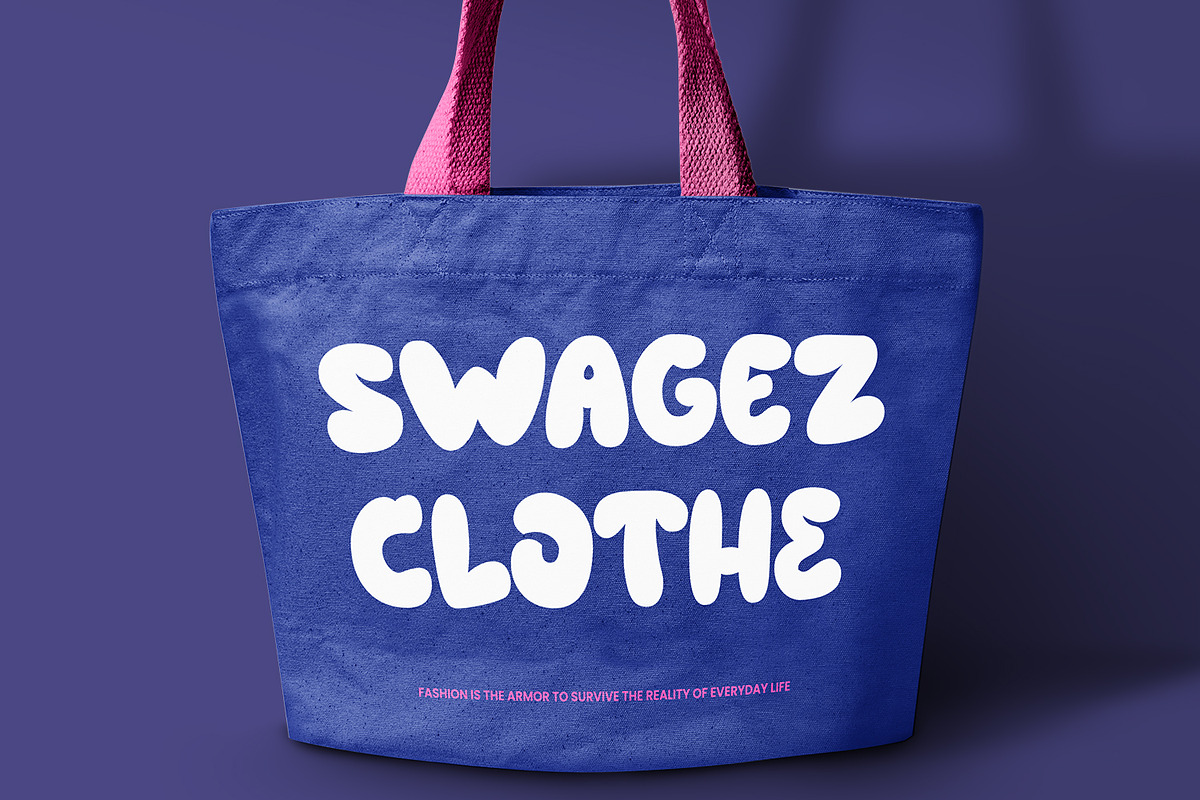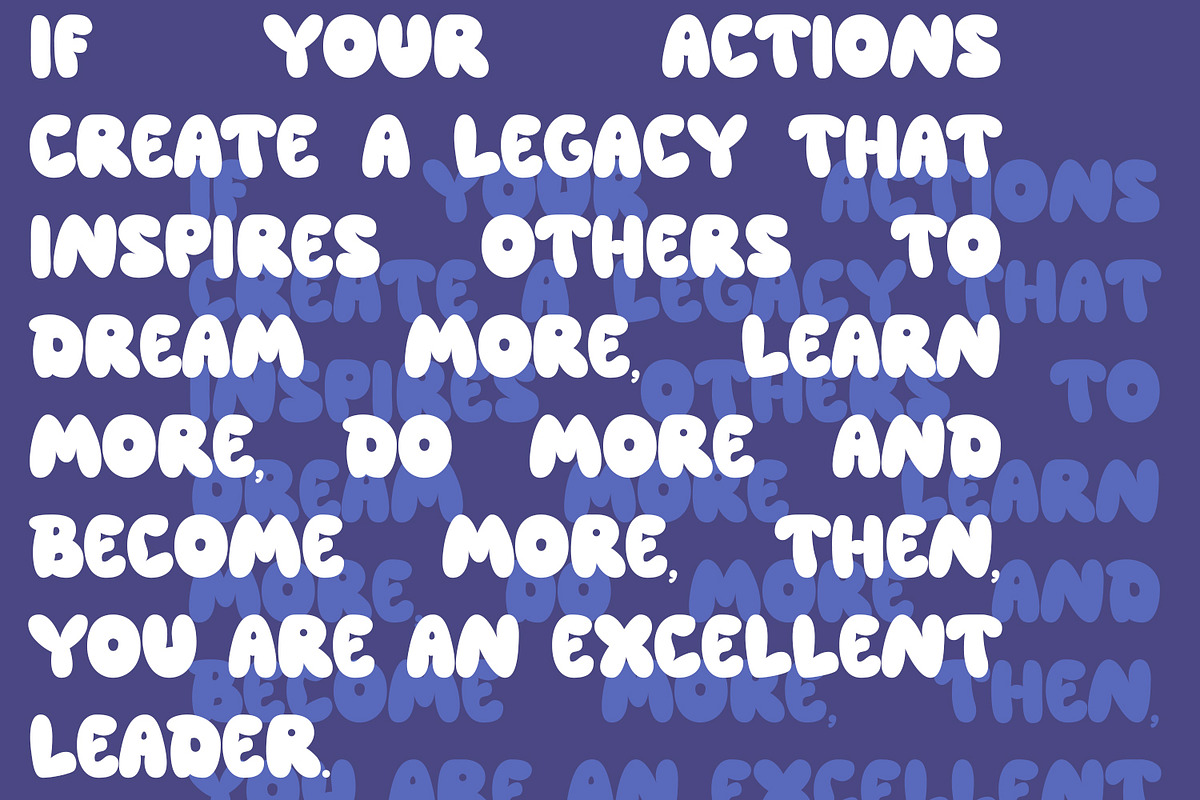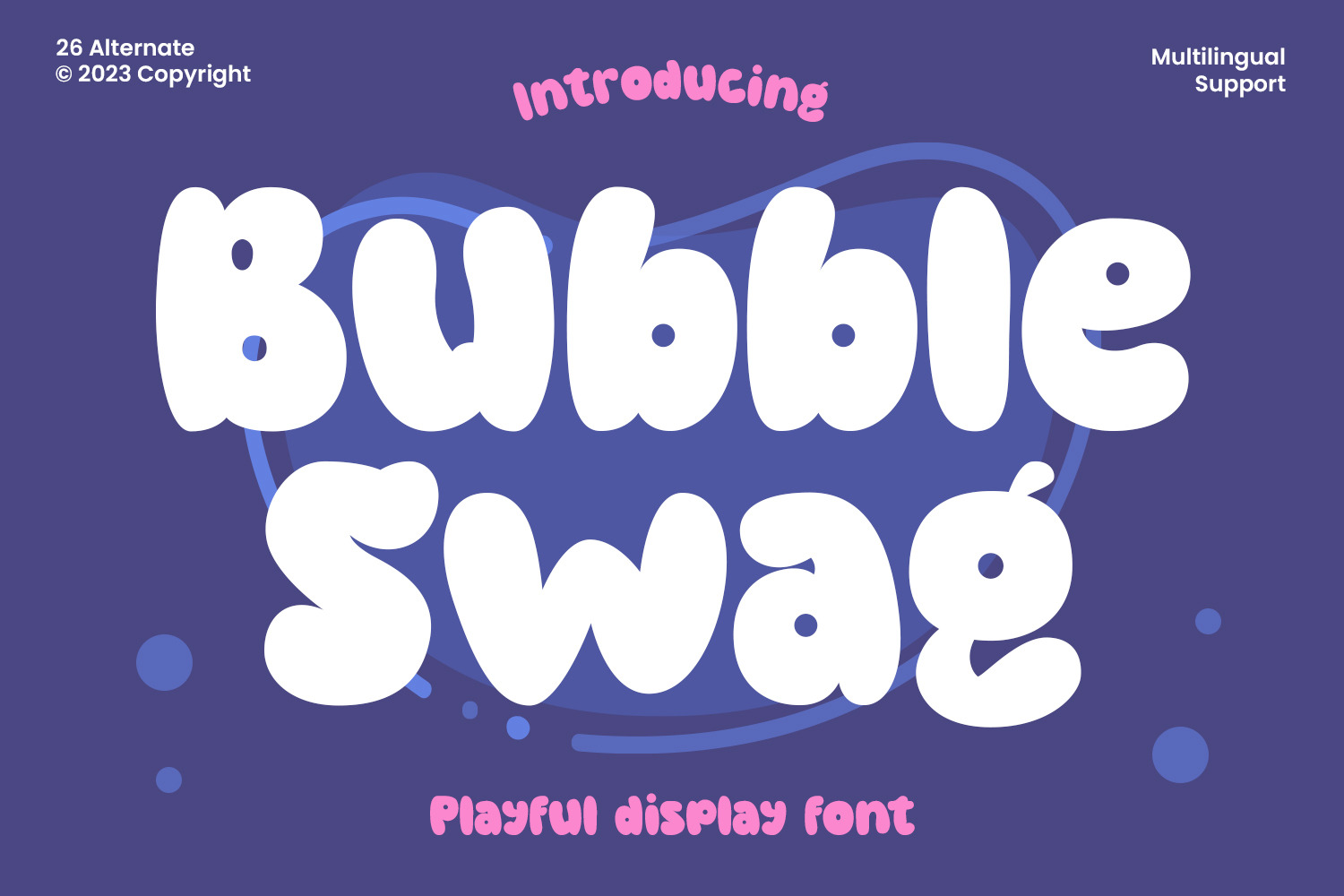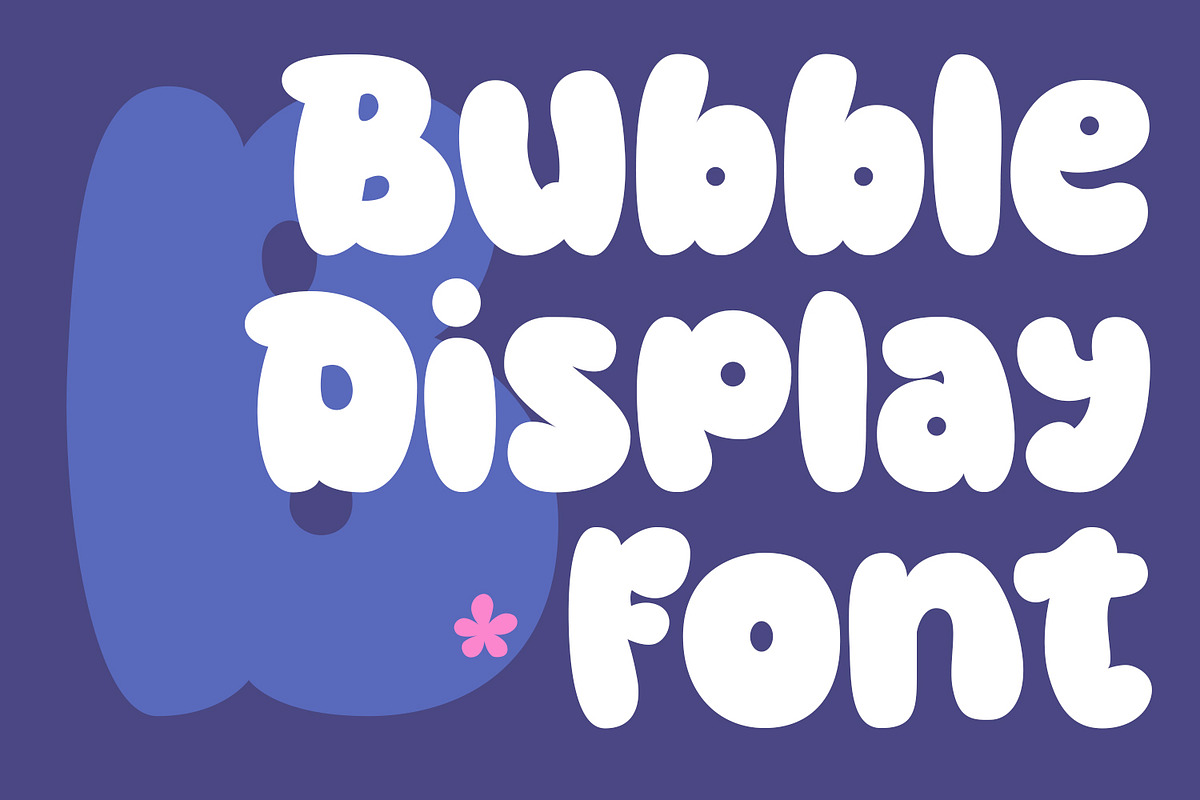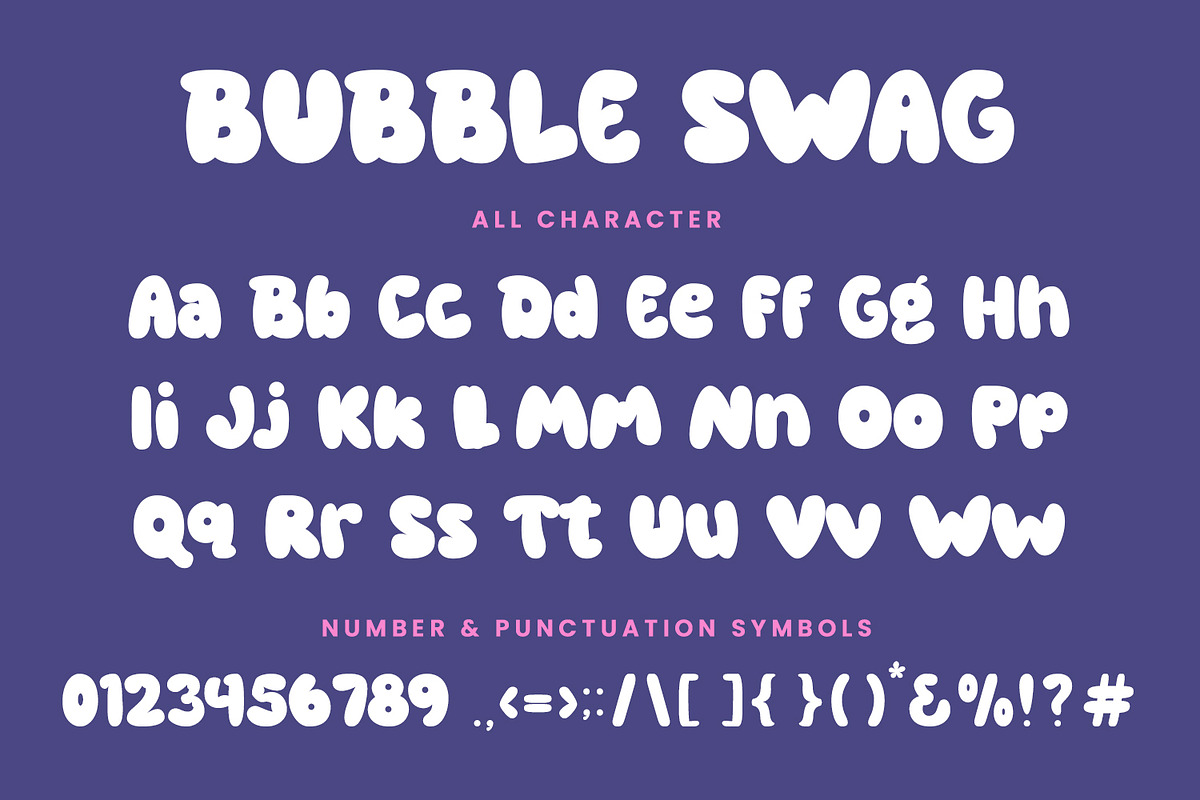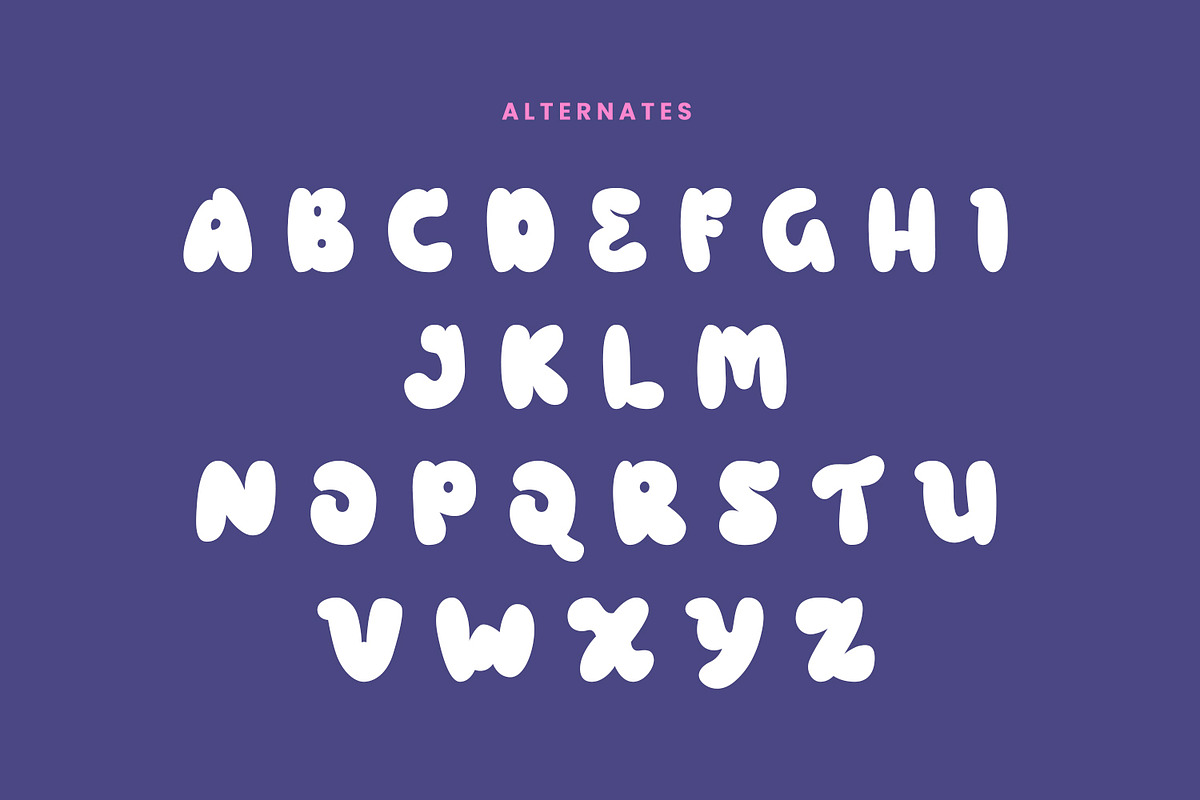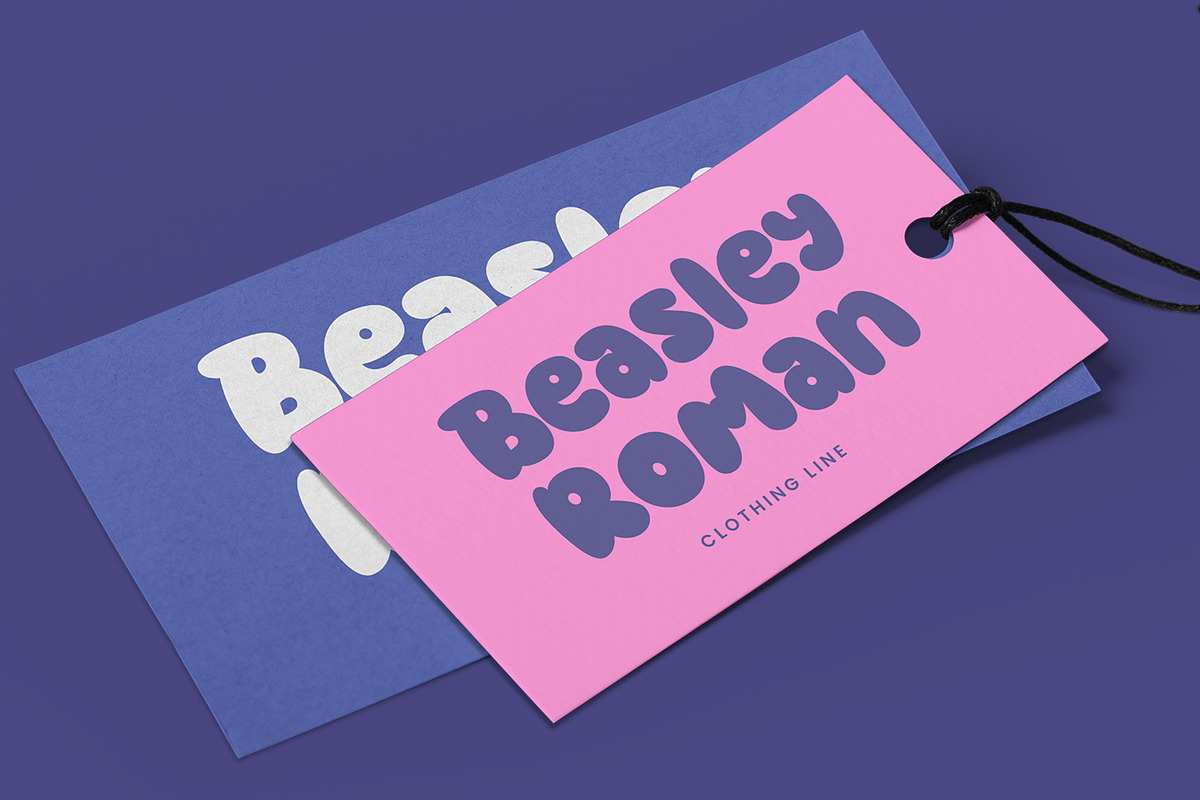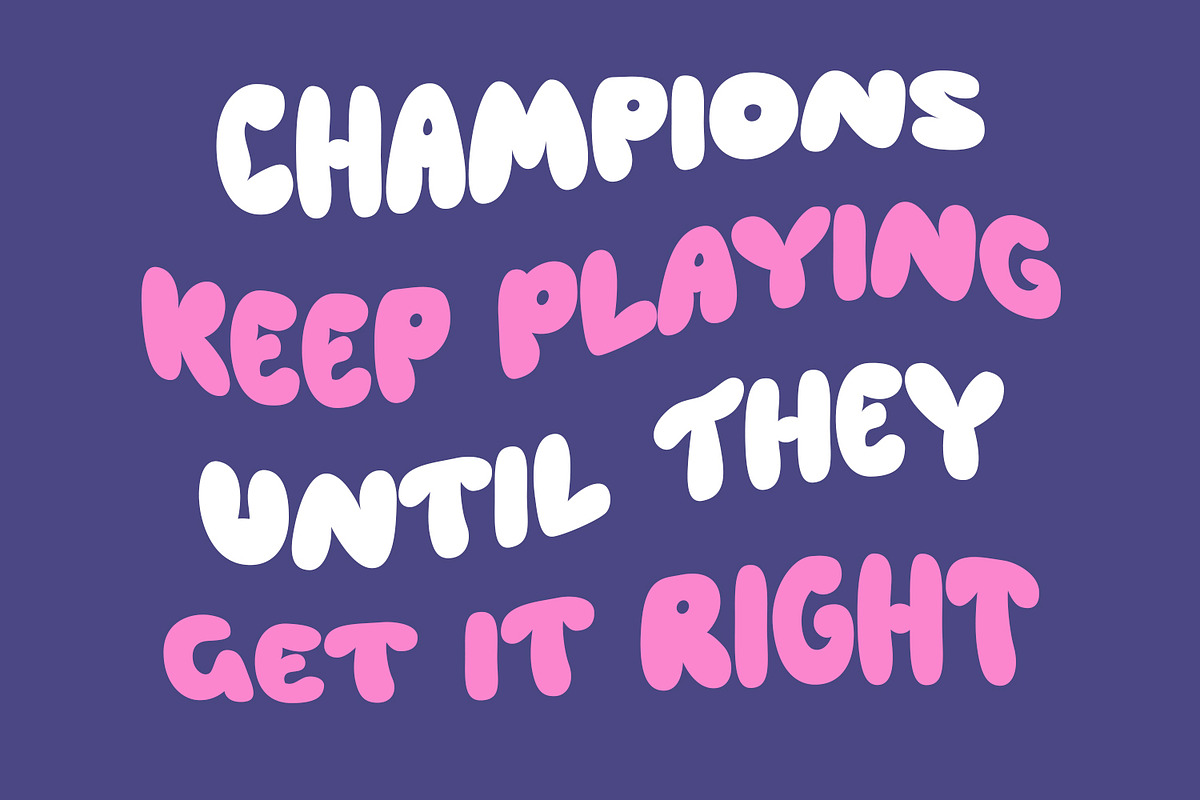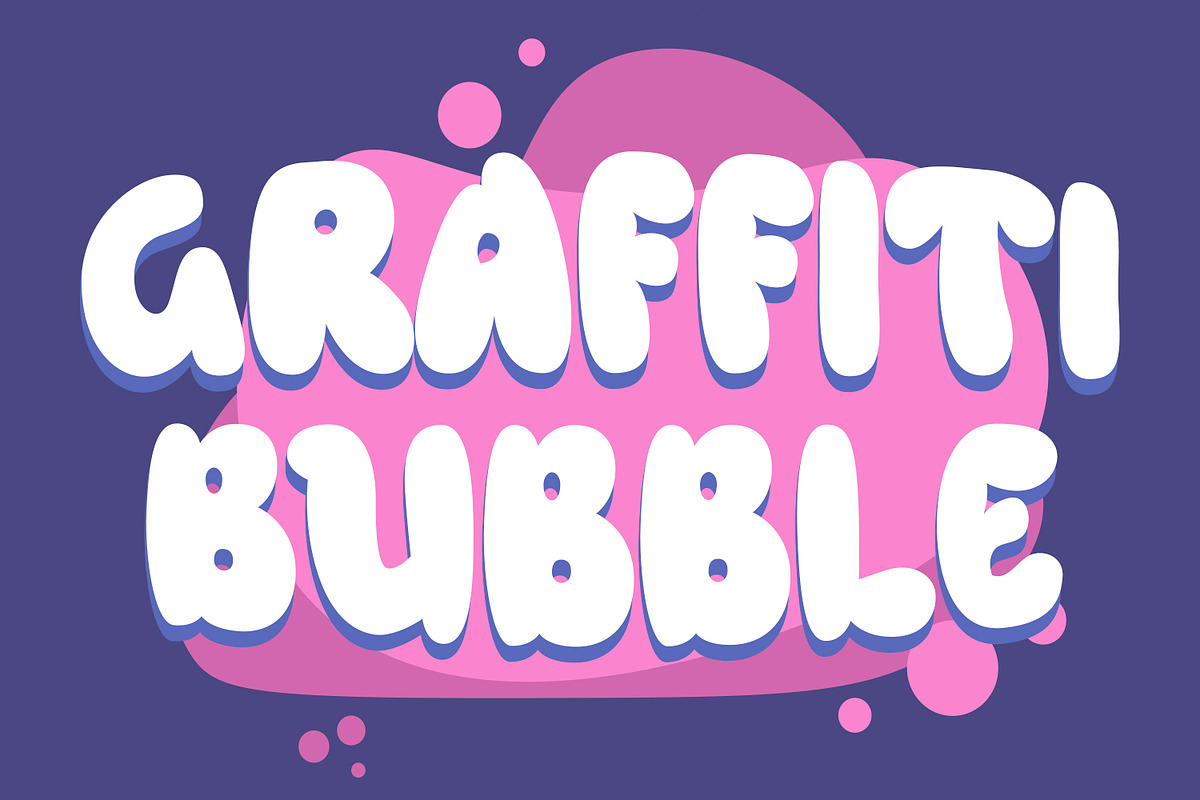
Bubble Swag - Playful Display Font
Bubble Swag - Playful Display Font contains a lowercase, uppercase, symbol, and also supports multi-language. There’s a lot of ligature in this font. Bubble Swag - Playful Display Font also comes with ligatures, stylistic alternates and many more. this font suitable for fashion, branding, catalog and other design that you want.